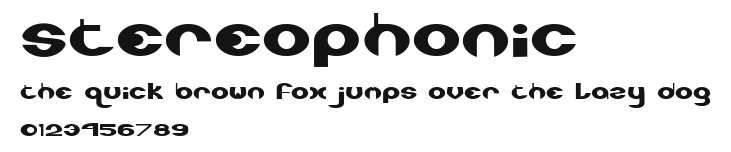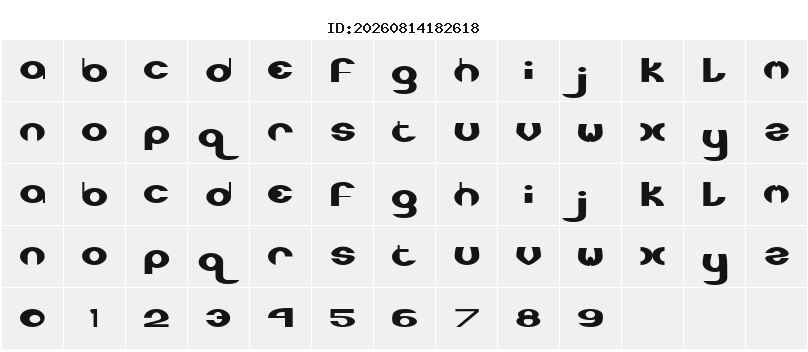
• Font Name: Stereophonic
Stereophonic.ttf is a modern, elegant sans-serif font designed for ultimate readability and visual harmony. Perfect for branding, headlines, web design, and print materials.